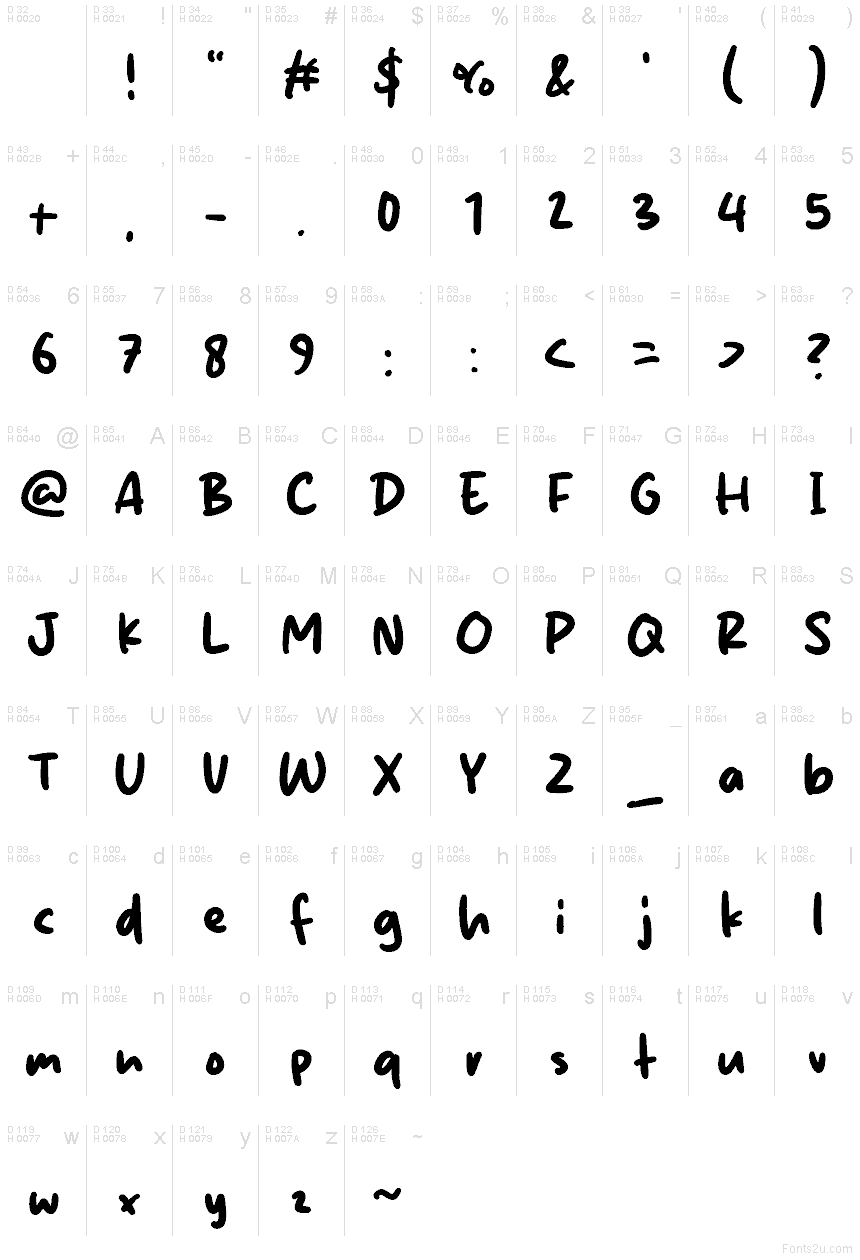
Lisda Jelly
Lisda Jelly font by MJType is a free handwritten font. Built around a gummy, jelly-like stroke, it looks like fresh marker ink settled on glossy paper—soft edges, plump curves, and a lively bounce that feels friendly without turning messy. The weight is confident and even, giving headlines a cuddly punch while staying readable in short lines and captions.
Using Lisda Jelly, you’ll get instant warmth for children’s branding, snack packaging, bakery menus, birthday invitations, classroom posters, and playful app onboarding screens. This free font shines on thumbnails and social graphics where bold, rounded rhythm pulls the eye. Pair it with a crisp, neutral sans for body text, or add a touch of letterspacing to keep the bubbly forms breathing.